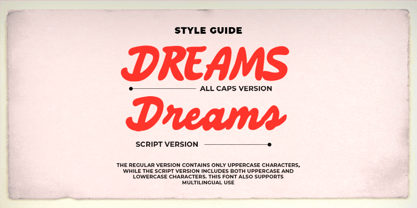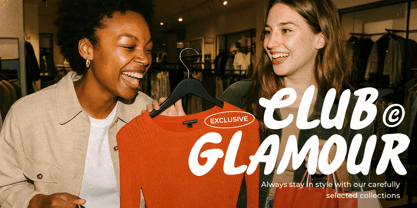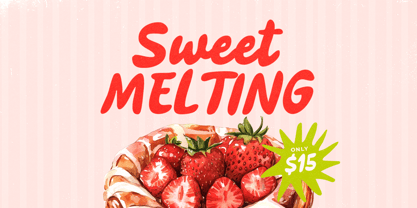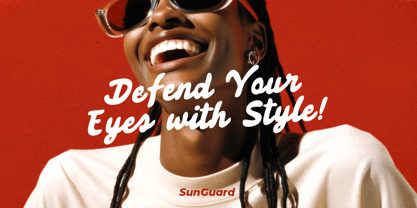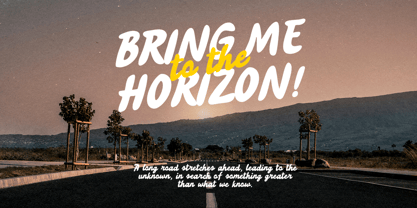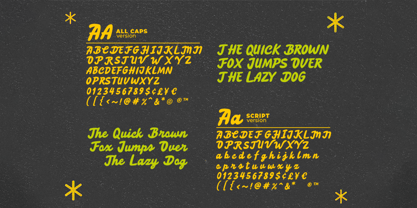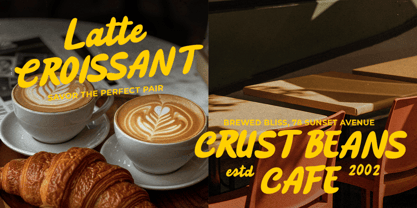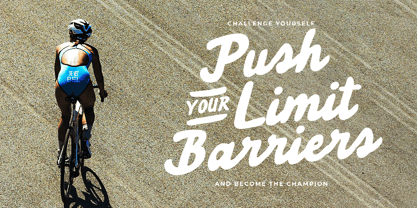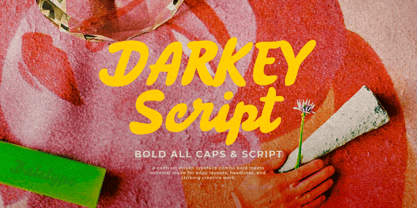
Darkey
by Bale Type
The Darkey Font Family was designed by Sarid Ezra, Liwa Shidqy and published by Bale Type. Darkey contains 2 styles.
Darkey is a bold handwritten font with two version, All Caps and Script. You can use both font in your project and it will complementary each other. This fonts is suitable for any designs such as branding, quotes, logotype, or even tagline. Darkey also support multi language.